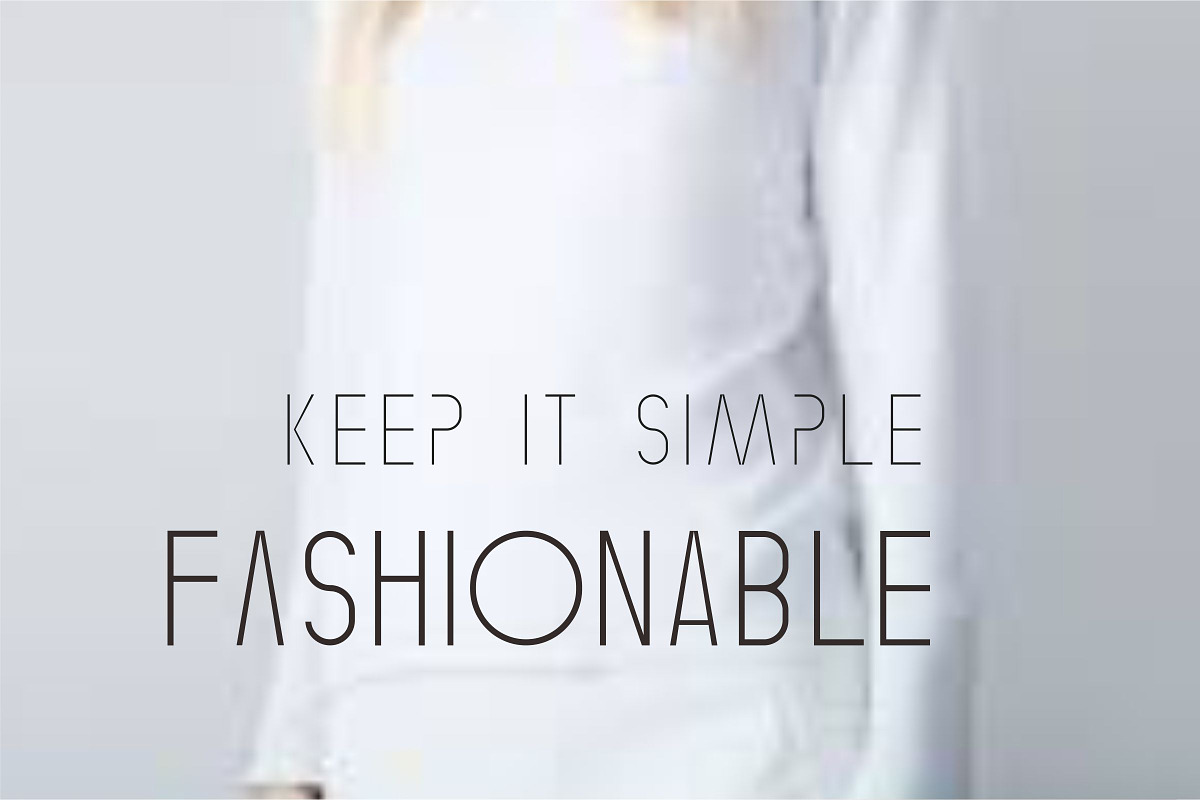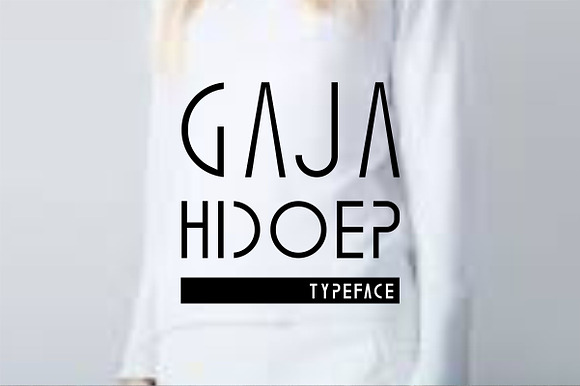
Gaja Hidoep (2 Font)
Gaja Hidoep a minimalis typeface and awesome character with 2 different style, Gaja hidoep light, Gaja hidoep regular. Gaja hidoep it’s perfect for namecard, poster, logo, magazine, cover, banner, tshirt and headers, or even large-scale artwork.
Gaja Hidoep (2 Font) by Akdesain fits naturally into Branding, posters, packaging, typography.